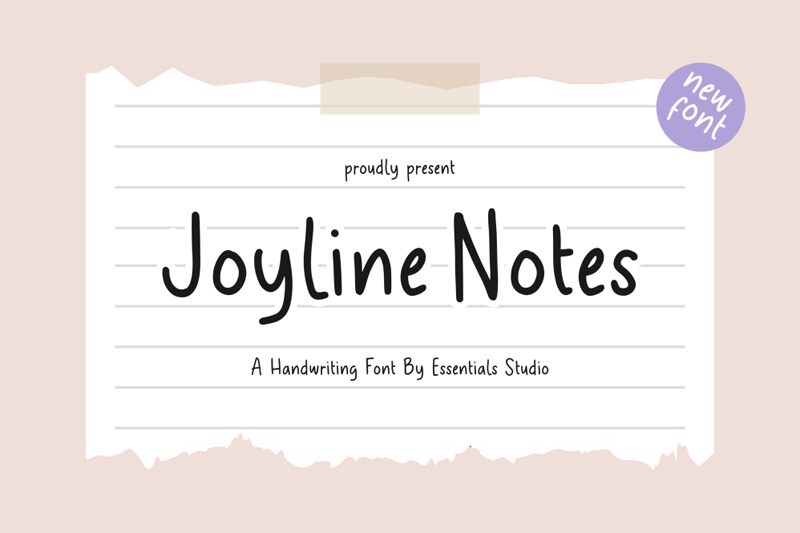
Joyline Notes is an authentic handwritten typeface presented by Essentials Studio, and perfect for playful titles and packaging design.
It brings to life a carefree childlike aura with its unique characters, each appearing with different curves, styles and thicknesses. Use Joyline to create fun t-shirt designs, labels for children’s products, greeting cards and branding projects for candy and snacks brands, or to illustrate comic books, and children’s literature.